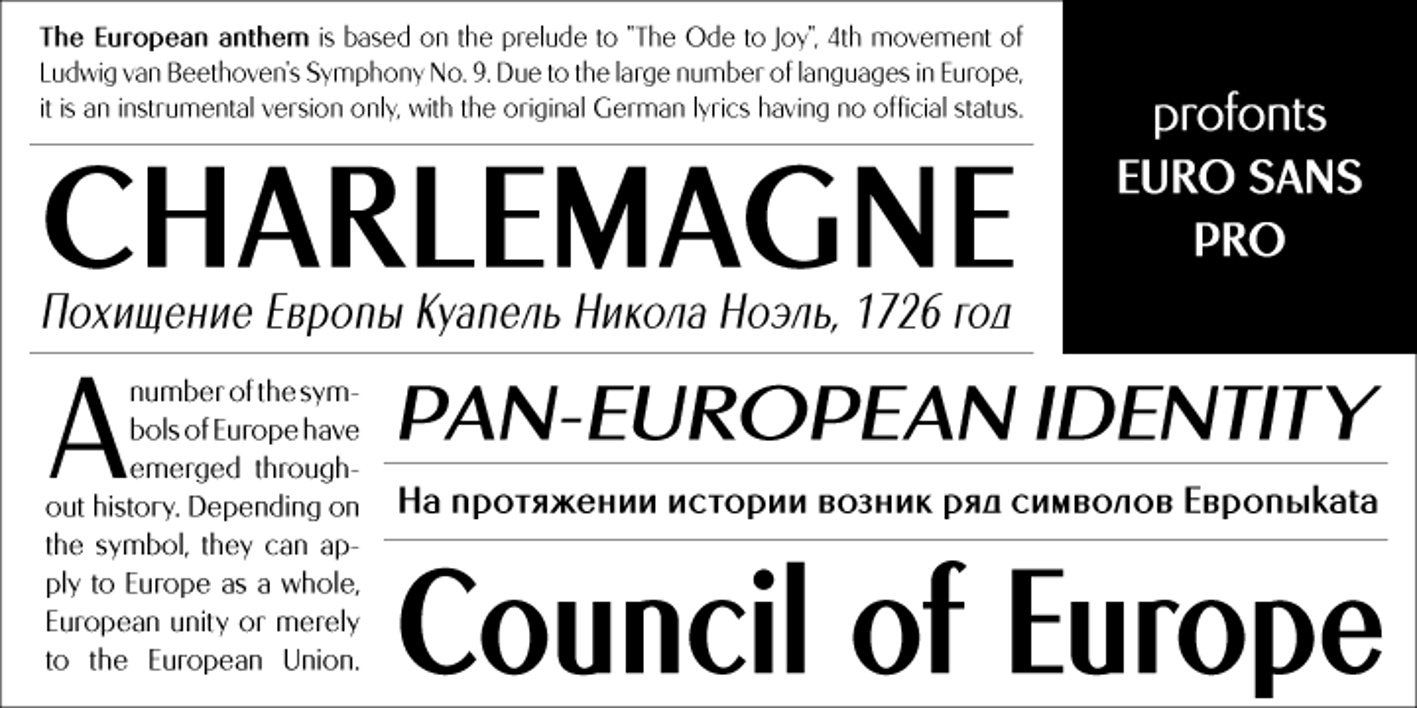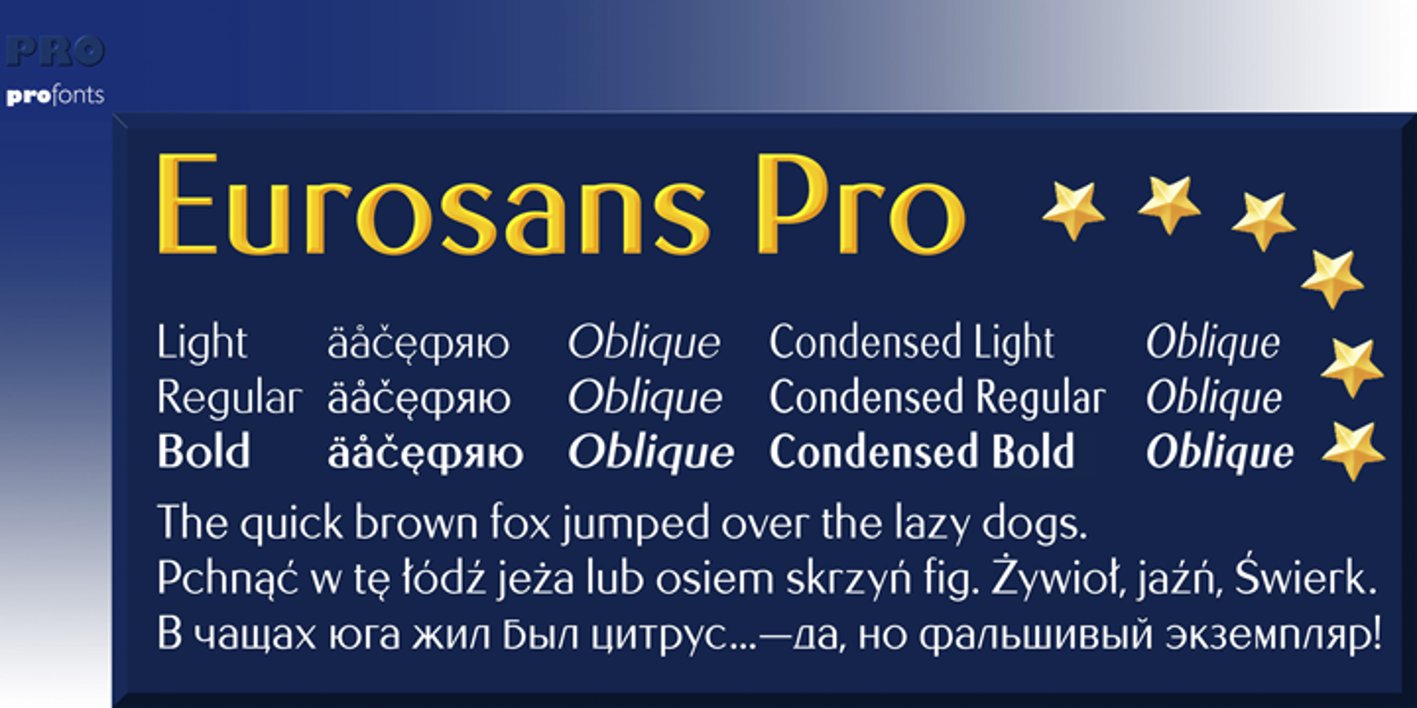
EuroSans Font
Euro Sans Pro ? created by German type designer Ralph M. Unger - is a classical and modern Roman Sans Serif at the same time. The family comprises of 12 styles, each with more than 500 glpyhs covering standard Latin, Central European, and Cyrillic.